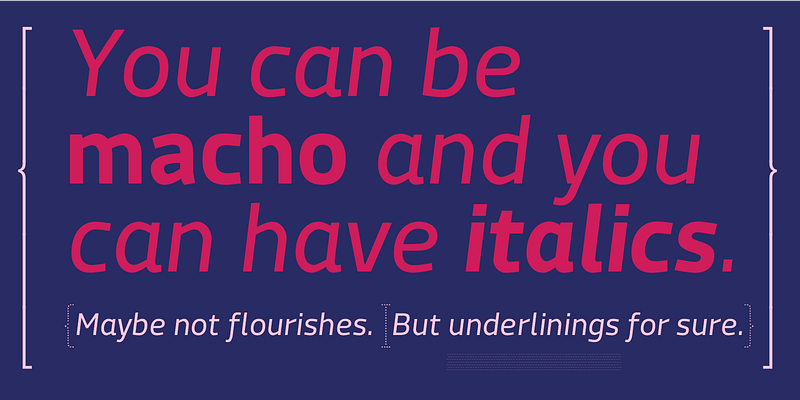
MachoModular specimen
MachoModular
Macho Modular is a sans with modular letter. Each letter has the same width in all weights. This system is inspired by Olivetti Margherita and Linotype machines.